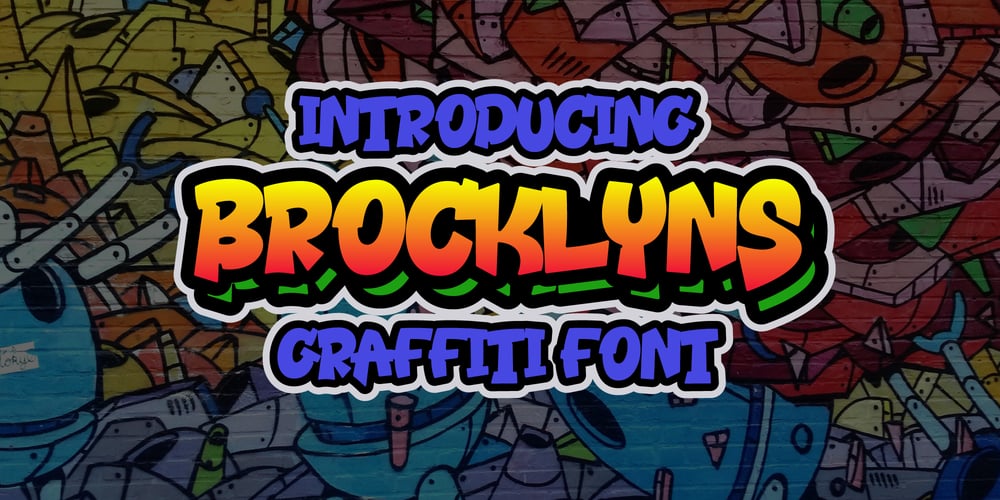
Brocklyns
Brocklyns font
Brocklyns Font Family was designed by Dida Ahluddin and published by ahweproject. Brocklyns contains 1 styles and family package options. Brooklyn is a cool, graffiti-style display font. Add this font to your urban and casual creations, and you will love the outcome. This font is suitable for designs such as t-shirts, sportswear, logos, advertisements, clothing, and more.